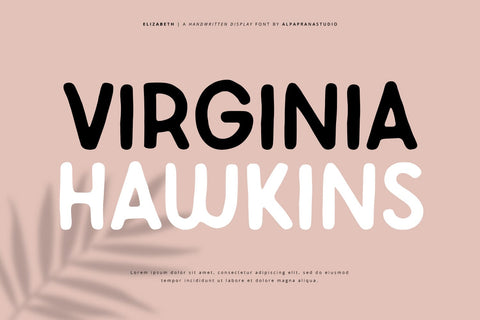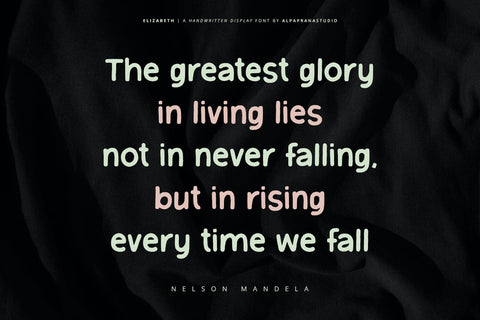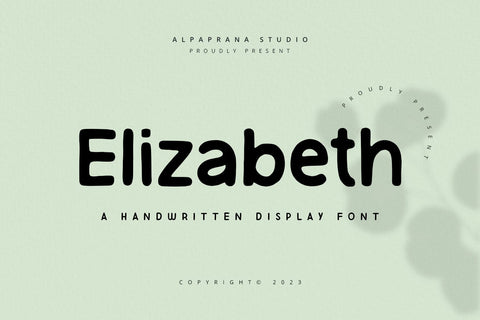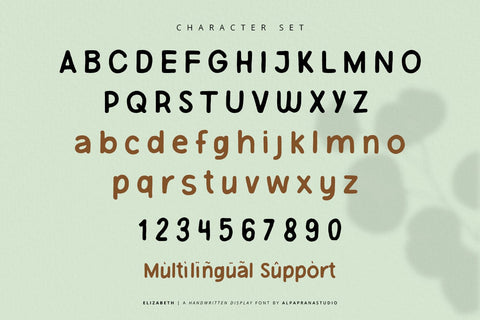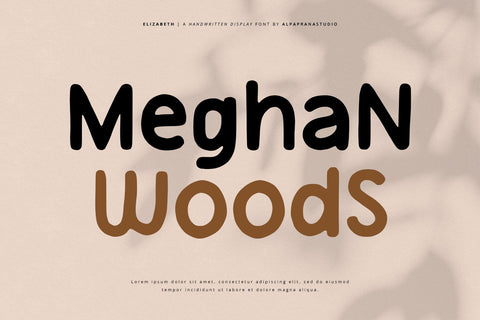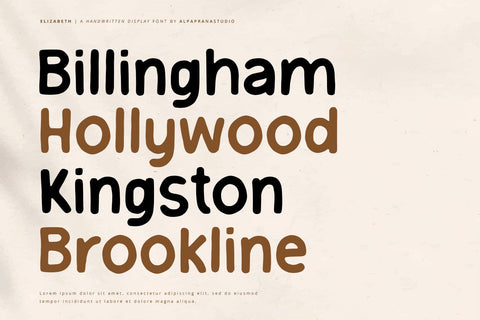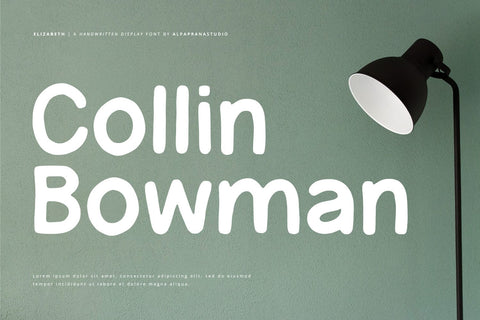
Elizabeth - Handwritten Font
Elizabeth is a handwritten font with retro modern feels. It will be perfectly used for Branding, Logo Design, Lettering, Logotype, Clothing, Poster, magazine, packaging, posters, shopping bags, t-shirts, book covers, photography, special events and other design project.